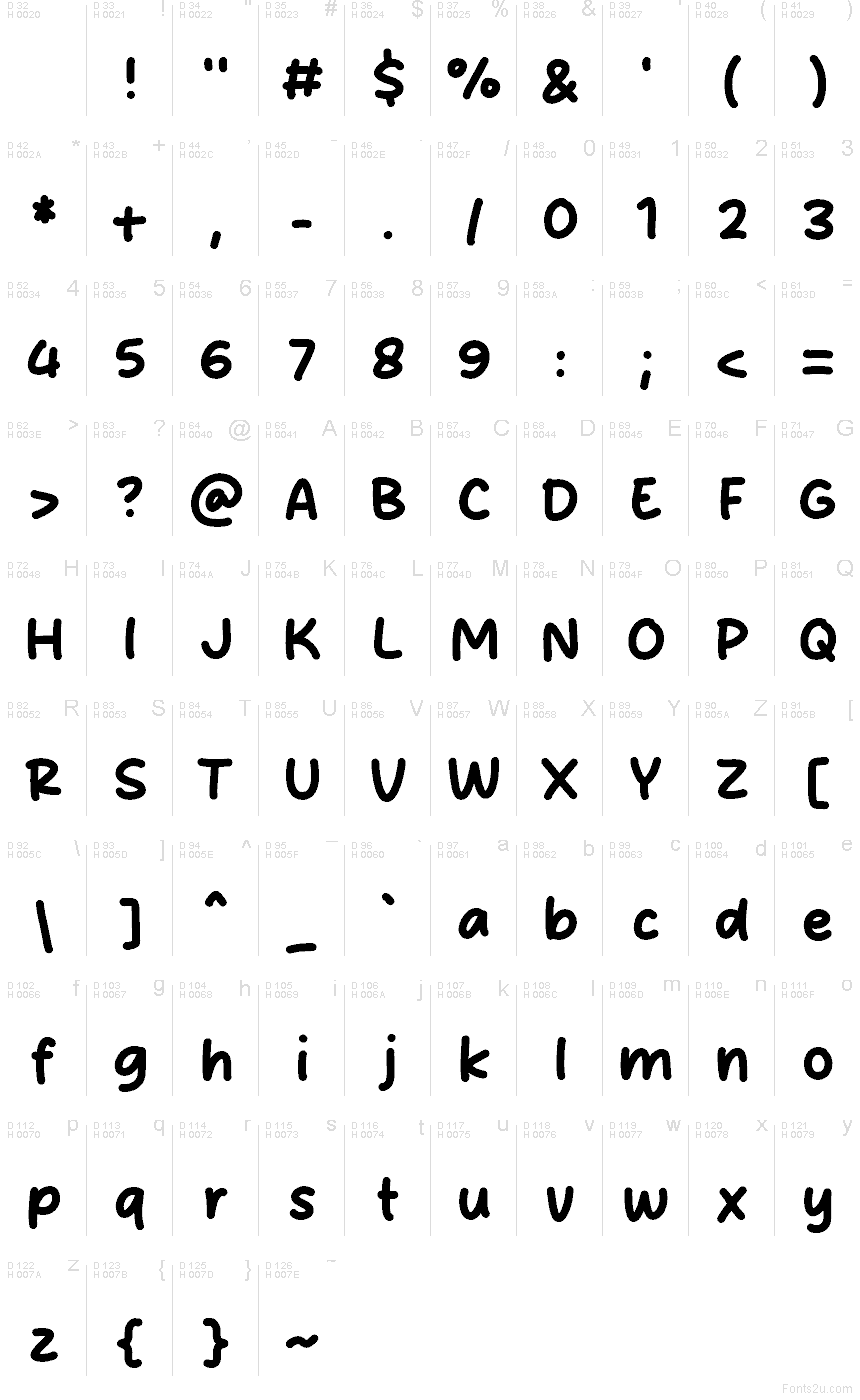
Lovely Rose
Lovely Rose font by MJType is a free handwritten typeface with bold, rounded strokes that feel like they’ve been brushed in thick, inky marker. The letters sit close together with a snug, bouncy rhythm that reads as warm and friendly rather than messy, making it easy to drop into real-world designs without sacrificing legibility. There’s a soft, almost squishy quality to the curves that gives every word a cozy, handmade charm.
Using Lovely Rose, this free font shines on product packaging, kid-focused branding, quote graphics, stickers, greeting cards, and social media posts where you want a cheerful, personal voice. It works beautifully as a headline style paired with a clean sans serif for small details and body text. Set it a bit larger than usual to really show off those rounded shapes and let the playful personality do the talking.